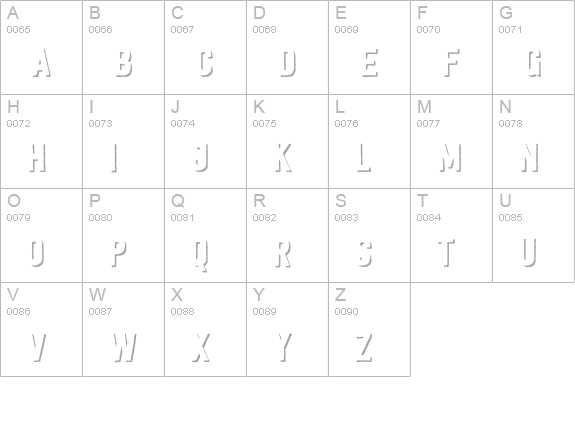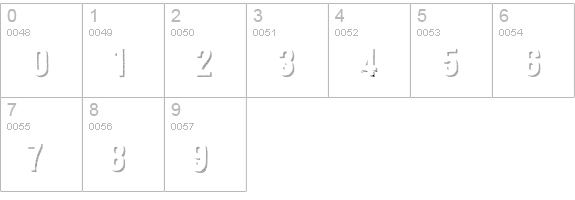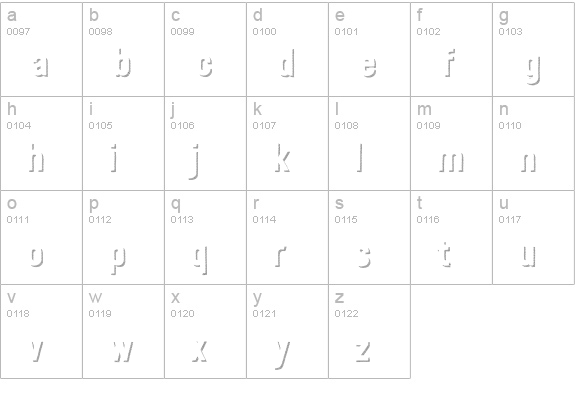
Festivo LC R Lines Font Details
Festivo LC R Lines font exudes a perfect balance of elegance and modernity, making it ideal for a wide range of design projects. Its sleek lines and stylish curves give a sophisticated touch to any text or headline. The font's clean and minimalistic design ensures readability and visual appeal in various contexts, from branding to editorial design. One of the best things about Festivo LC R Lines font is that it is completely free for personal and commercial use. You can easily download this versatile font from FontsMarket.com and start incorporating its unique style into your projects today. With its timeless aesthetic and versatile applications, Festivo LC R Lines font is a must-have addition to any designer's toolkit.